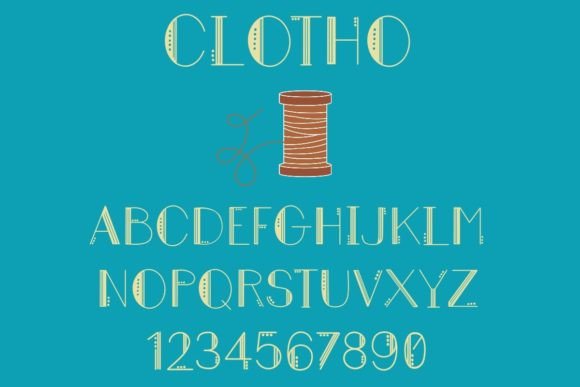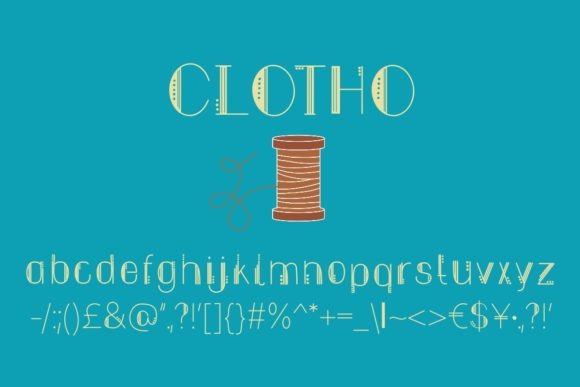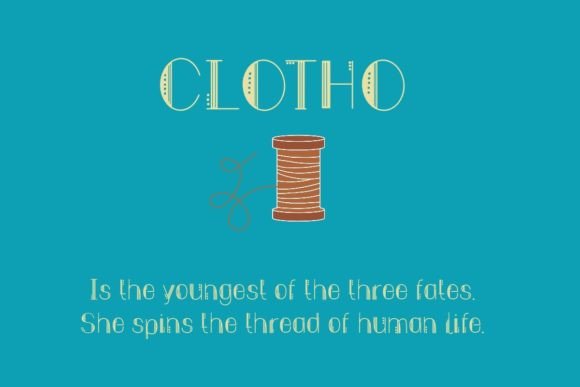
Discover the Unique Charm of Clotho Font: Elevate Your Designs with its Art Deco Flair
In the world of typography, fonts play a crucial role in conveying the tone and personality of a design. For designers and crafters looking to add a touch of sophistication and whimsy to their projects, Clotho Font is an excellent choice. This unusual font boasts a quirky Art Deco feel that can instantly elevate your branding, logos, labels, tags, book covers, and wall prints.
What Makes Clotho Font Stand Out?
Clotho Font is not your average typeface. Its unique blend of Art Deco elegance and playfulness makes it a versatile font suitable for a wide range of applications. Whether you’re working on a branding project, designing invitations for parties and weddings, or creating eye-catching book covers, Clotho Font is sure to make a statement.
One of the key features that sets Clotho Font apart is its stylish yet approachable aesthetic. The font’s Art Deco influence gives it a sophisticated and luxurious feel, while its quirky undertones keep it from feeling too formal or stuffy. This balance makes Clotho Font an excellent choice for designers who want to add a touch of glamour to their work without sacrificing approachability.
Endless Possibilities with Clotho Font
The versatility of Clotho Font is one of its most significant advantages. Here are just a few examples of how you can use this font to elevate your designs:
- Branding and Logos: Create a lasting impression with a custom logo that incorporates Clotho Font. Its unique blend of style and whimsy makes it perfect for businesses looking to stand out in their industry.
- Labels and Tags: Add a touch of elegance to your product labels or tags with Clotho Font. Its Art Deco flair will give your products a sophisticated and high-end feel.
- Book Covers: Make your book cover design pop with Clotho Font. Its quirky charm will add a touch of personality to your book’s exterior, making it more likely to grab the attention of potential readers.
- Invitations and Weddings: Create beautiful and unique invitations for parties and weddings using Clotho Font. Its stylish yet approachable aesthetic makes it perfect for formal and informal events alike.
- Wall Prints and Quotes: Add a touch of inspiration to your wall prints and quotes with Clotho Font. Its elegant and whimsical feel will make your designs perfect for home decor or office spaces.
Why Designers and Crafters Love Clotho Font
Designers and crafters alike are drawn to Clotho Font for its unique combination of style and versatility. Here are just a few reasons why:
| Font Name | Clotho Font |
| Author | My Little Black Heart |
Clotho Font is a game-changer for designers and crafters looking to add a touch of Art Deco elegance and whimsy to their projects. Its unique blend of style and approachability makes it perfect for a wide range of applications, from branding and logos to book covers and wall prints. With its ease of use, customization options, and excellent support, Clotho Font is sure to become a staple in your design toolkit.